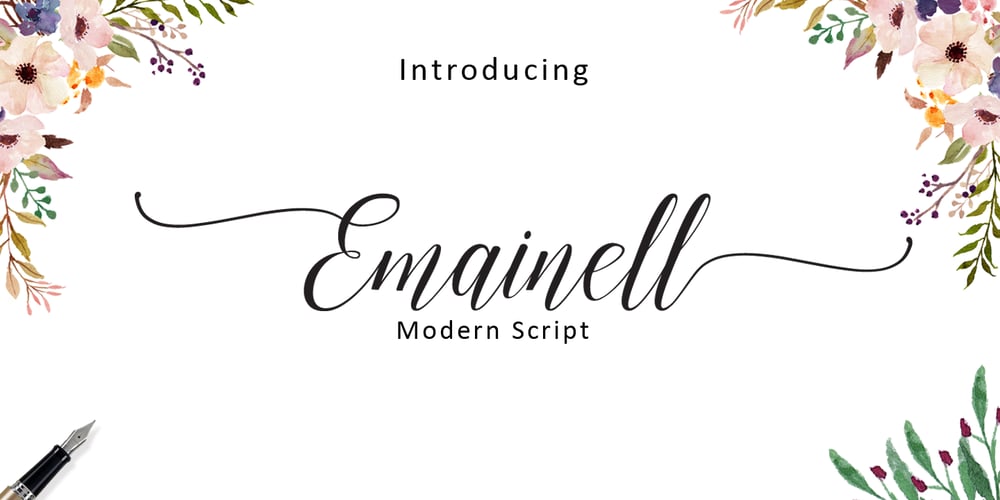
Emainell Script Font Family was designed by Teuku Zulfikar and published by Josstype. Emainell Script contains 1 styles and family package options. Emainell Script is a handwritten typeface with classic roots, a beautiful formal script with an elegant touch. It works perfectly in the world of weddings, logos, greeting cards, branding, print ads, quotes, signage, magazines etc. Emainell Script features 466+ glyphs and 278 alternate characters. including initial and terminal letters, alternates, swashes, ligatures and multiple language support. To enable the OpenType Stylistic alternates, you need a program that supports OpenType features such as Adobe Illustrator CS, Adobe Indesign & CorelDraw X6-X7, Microsoft Word 2010 or later versions. There are additional ways to access alternates/swashes, using Character Map (Windows), Nexus Font (Windows), Font Book (Mac) or a software program such as PopChar (for Windows and Mac). Thank you for your purchase! and please let me know if you have any questions.via email: joelpopon@gmail.com